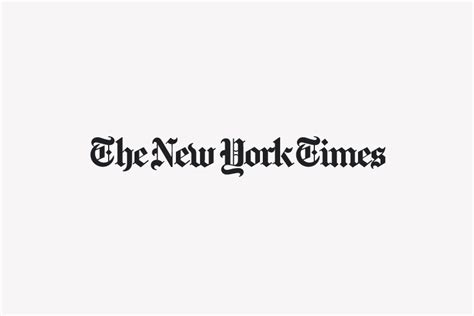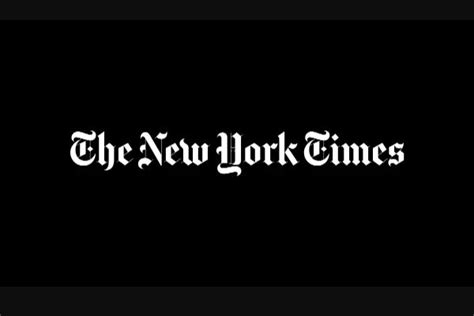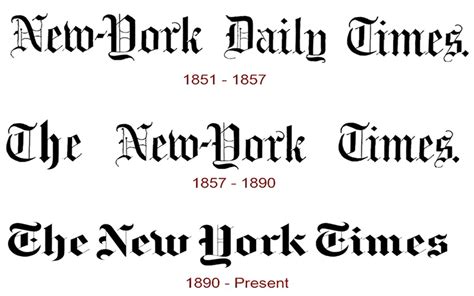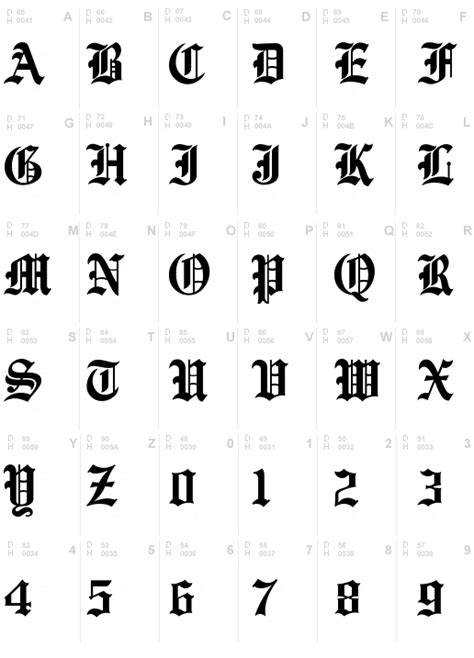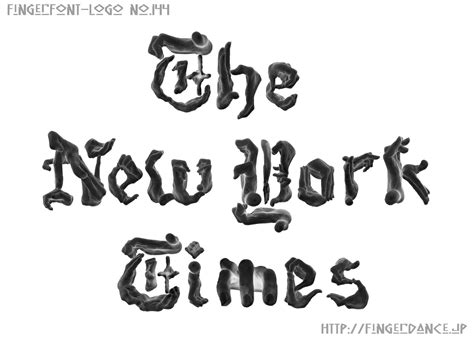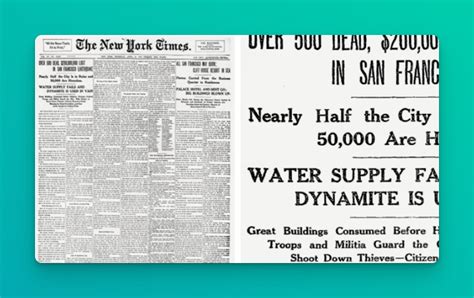
NEW YORK TIMES FONT
Every Font Used by The New York Times in 2026 - Explained
The New York Times font is a widely recognized and distinctive type style, known for its elegance and readability. This font has become an iconic symbol of the renowned newspaper, The New York Times, and has been a key element in the publication's branding and visual identity. The font's unique characteristics and its impact on the newspaper's design are fascinating aspects of graphic design and typography.
The New York Times font is a serif font, which means it features small lines or strokes at the ends of the main strokes of the letters, adding a sense of elegance and tradition. This font family is designed to be highly legible, ensuring that readers can easily discern the text, even in small sizes. The design is characterized by its moderate x-height, slightly rounded letters, and a subtle contrast between thick and thin strokes, creating a balanced and refined appearance.
One of the key benefits of the New York Times font is its versatility. It can be used effectively in various contexts, from print newspapers to digital displays, maintaining its readability and visual appeal. This versatility has contributed to its widespread use and recognition, making it a popular choice for many publications and designers.